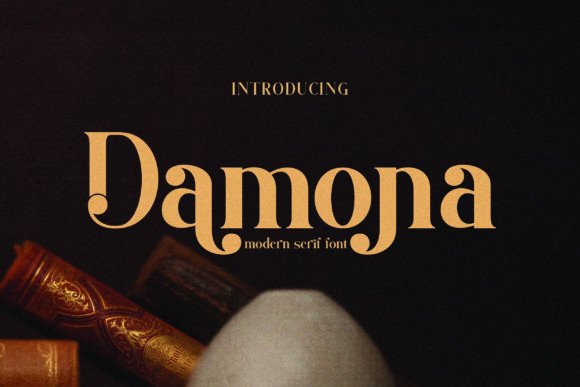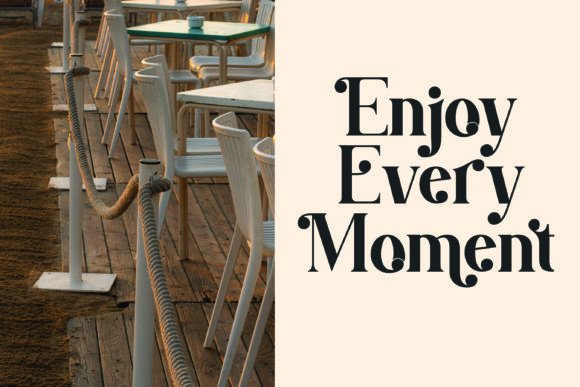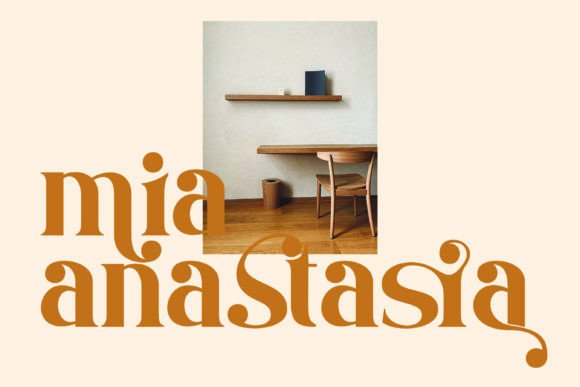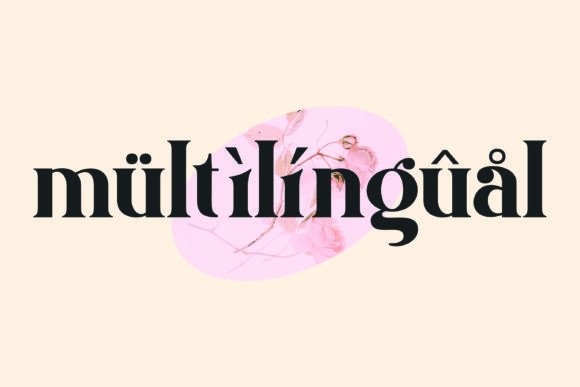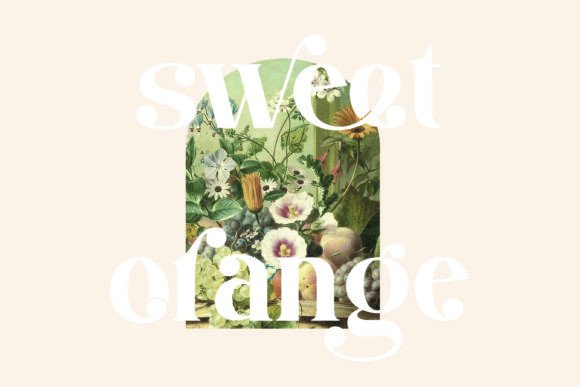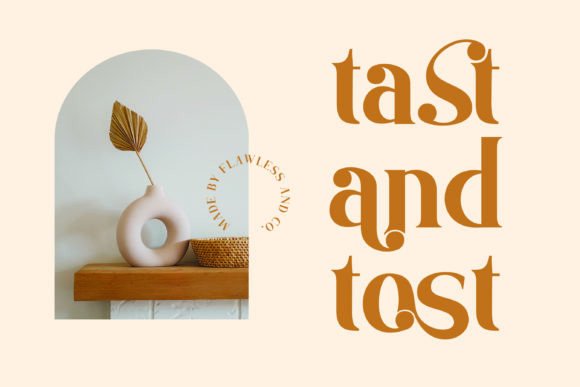
Introducing Damona Font: The Perfect Modern Retro Serif for Your Design Projects
Are you looking for a font that can add a touch of elegance and boldness to your retro-themed projects? Look no further than Damona Font! This modern retro serif font is perfect for designers and crafters who want to create stunning visuals that evoke a sense of nostalgia and sophistication. In this article, we’ll explore the features and benefits of Damona Font, and show you how to make the most of this versatile typeface.
A Modern Retro Serif with Elegance and Boldness
Damona Font is a beautifully crafted modern retro serif font that exudes elegance and boldness. Its unique design combines classic serif elements with a modern twist, making it perfect for a wide range of design projects. Whether you’re working on poster designs, branding materials, t-shirts, business cards, logos, photography, quotes, or more, Damona Font is the perfect choice.
One of the standout features of Damona Font is its versatility. The font comes with a range of alternate characters, which can be used to create different visual effects and add some extra flair to your designs. With Damona Font, you can experiment with different character combinations to find the perfect look for your project.
PUA Encoded for Easy Access to Glyphs and Swashes
Damona Font is perfect for a wide range of design projects, including:
- Poster designs: Add a touch of elegance and boldness to your posters with Damona Font.
- Branding materials: Use Damona Font to create stunning logos, business cards, and other branding materials.
- T-shirts and apparel: Damona Font is perfect for designing t-shirts, hoodies, and other apparel.
- Photography: Add a touch of sophistication to your photography with Damona Font.
- Quotes and typography: Use Damona Font to create stunning typographic quotes and posters.
Tips for Using Damona Font
Here are some tips for using Damona Font in your design projects:
- Experiment with alternate characters: Try out different character combinations to find the perfect look for your project.
- Use the font’s glyphs and swashes: Take advantage of the font’s extended character set to add some extra flair to your designs.
- Pair Damona Font with other fonts: Experiment with pairing Damona Font with other fonts to create stunning typographic combinations.
- Adjust the font size and style: Experiment with different font sizes and styles to find the perfect look for your project.